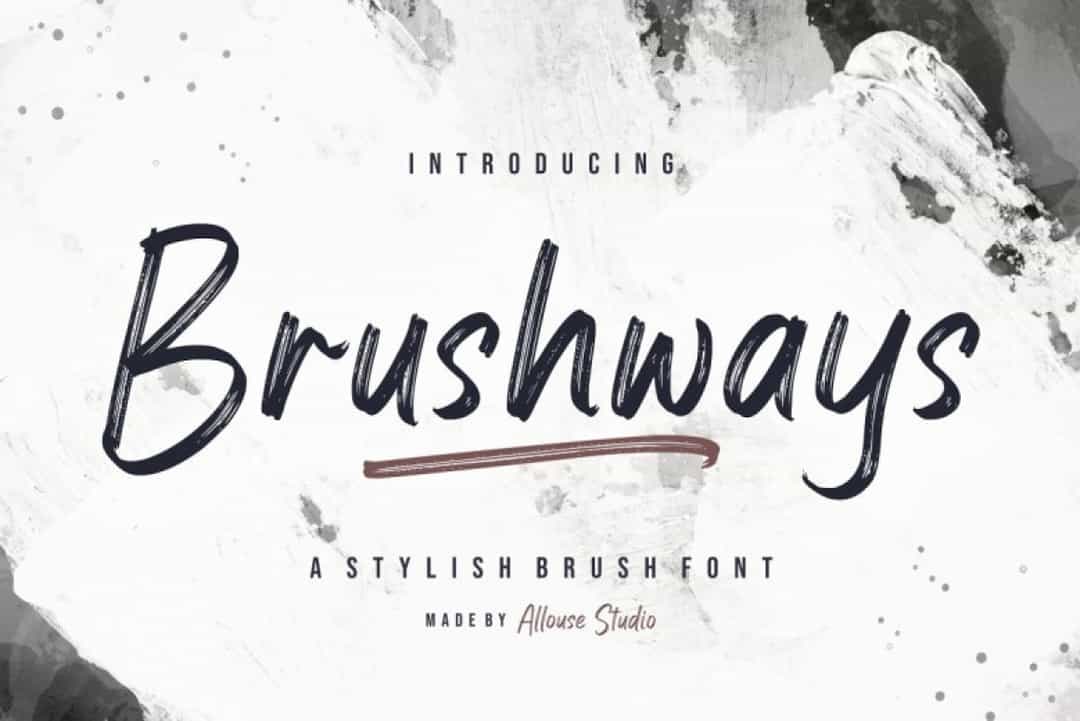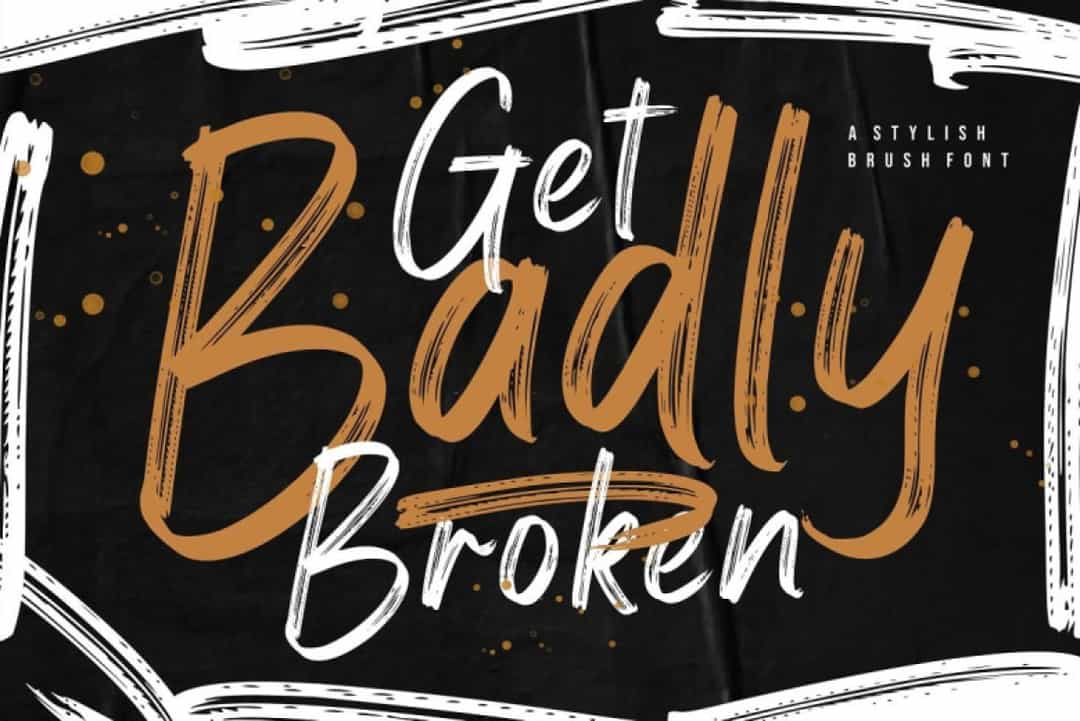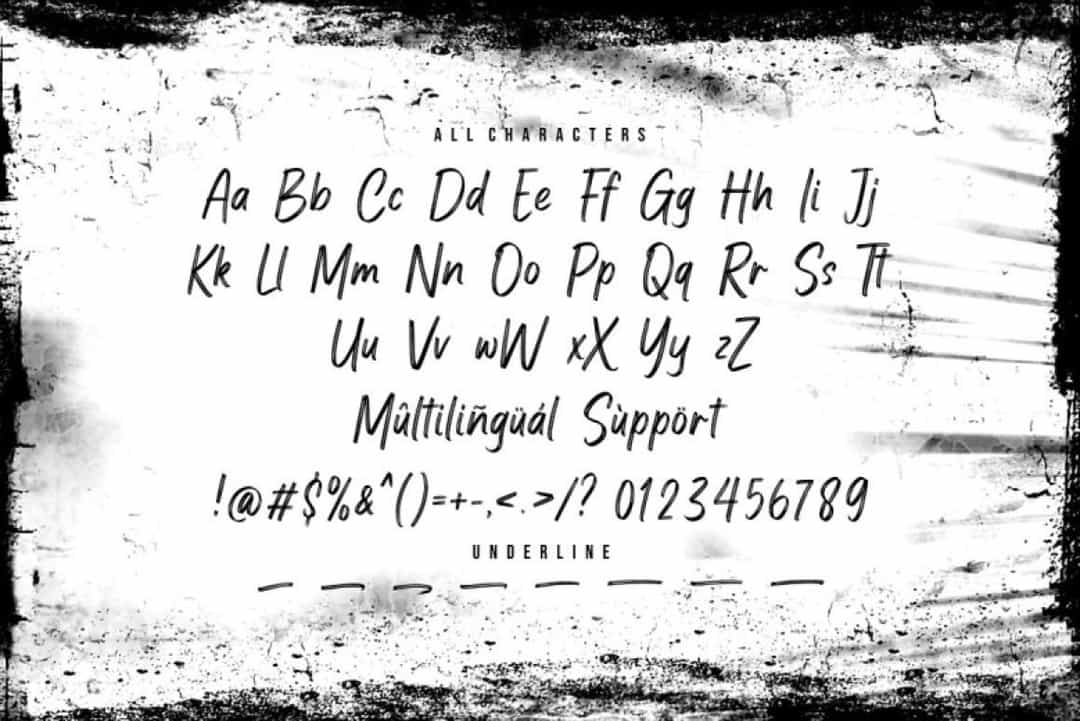
Discover Brushways Font, part of the Brush collection—a versatile and unique font perfect for adding a personal touch to your projects. Download it for free and enjoy crafting designs with style, from invitations to social media posts. This font is available exclusively for personal use, giving you the freedom to create without limits. Unlock your creativity with Brushways Font today!
Brushways is an eye-catching brushway script font. Perfect for products, titles, logos, packaging designs, magazine wedding invitations or simply to express phrases above the background, Brushways also comes with multilingual support!